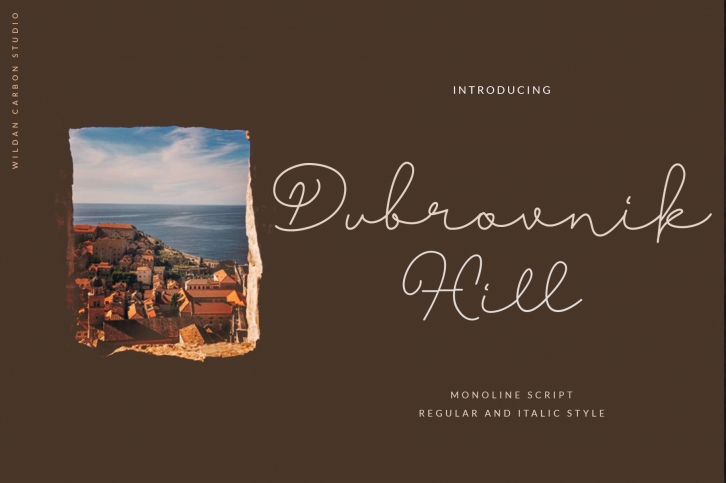
Dubrovnik Hill is a trendy and unique font with an authentic style. It was designed by Wildan Carbon Studio and it's a great choice for creative people who need such a font. It was released on November 12, 2020 and the file size is 1.99 MB. Dubrovnik Hill will add an organic vibe to any design idea!